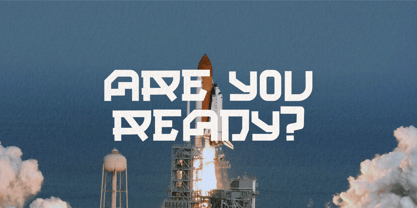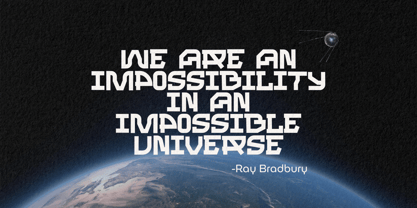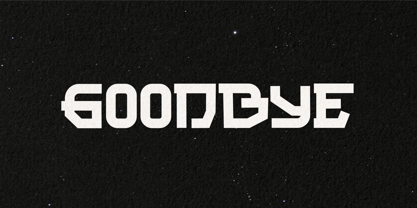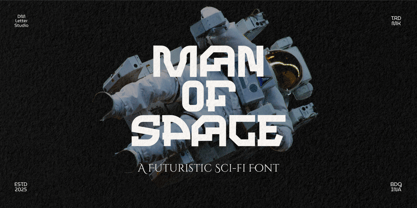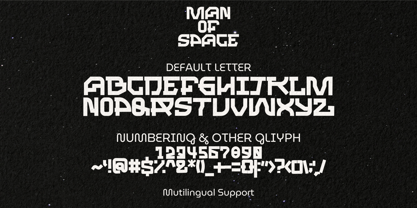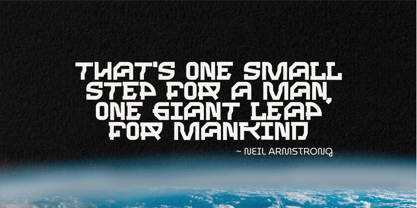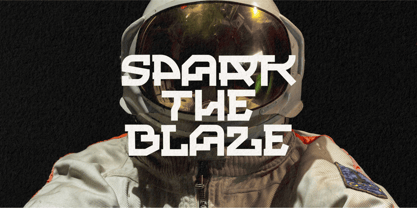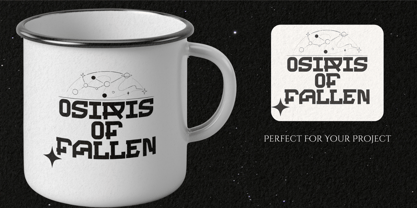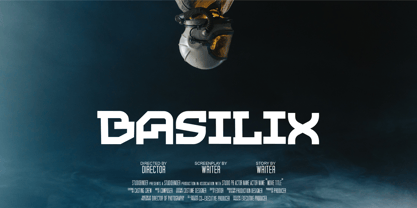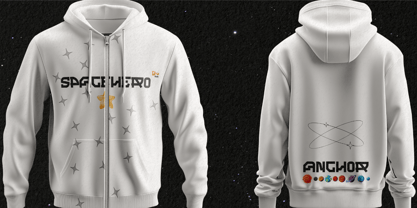
Man of Space
The Man of Space Font Family was designed by Dimas Prasetyo and published by DM Studio. Man of Space contains 1 styles. More about this family
Man of Space is a cutting-edge futuristic font designed for sci-fi lovers, space-themed projects, and high-tech designs. With its sleek, modern letterforms and a futuristic aesthetic, this typeface is perfect for movie titles, game interfaces, tech branding, and digital artwork. Whether you're designing for a sci-fi novel, a space exploration project, or a cyberpunk-inspired logo, Man of Space brings a bold, high-tech feel to your creations.
Features:
• Futuristic and Sci-Fi Inspired Design: A sleek, modern typeface with a high-tech look.
• Versatile Application: Ideal for gaming, space projects, tech branding, movie posters, and more.
• Geometric and Bold Letterforms: Designed for a clean, digital, and futuristic appearance.
• Uppercase and Lowercase Letters: Allows for creative flexibility.
• Punctuation and Symbols: Includes a full set of punctuation marks and symbols for various design needs.